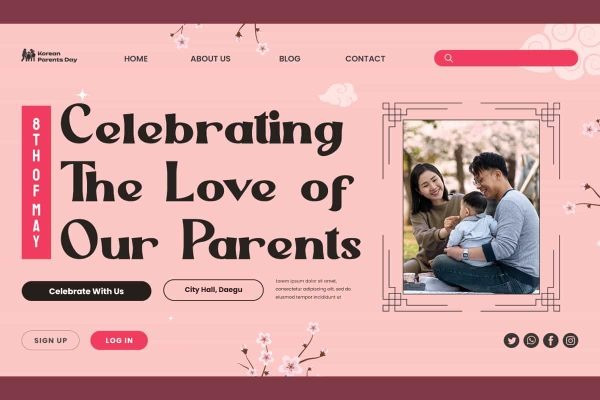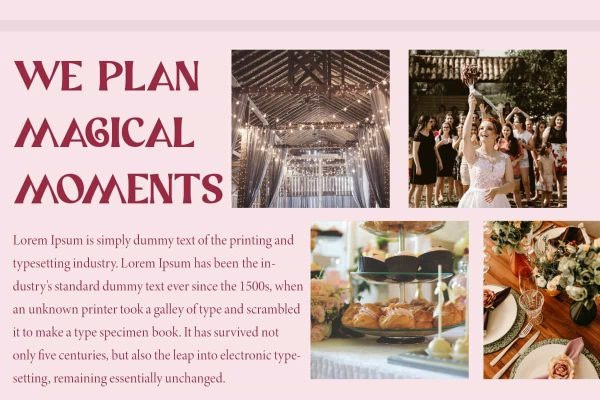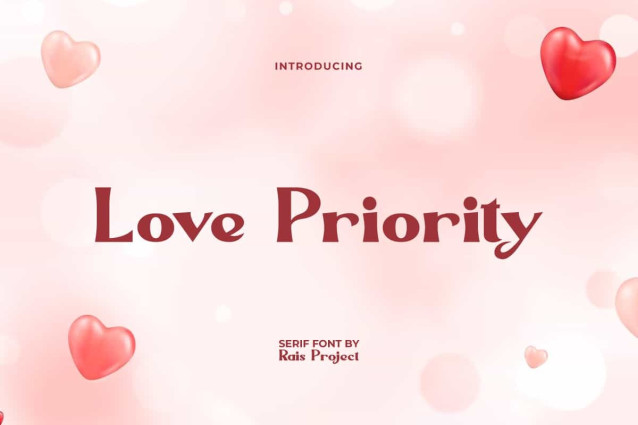
Love Priority Font
Love Priority Font is a sweet elegant serif display font, by RaisProject. This font can add beauty to every design, especially in the month of February which is full of love. It will be good for any designs, such as custom design, label, poster, brand image, invitation, cover, product packaging, quotes, signage, stationery, web, and more!
Love Priority Font includes a full set of Uppercase and Lowercase Letters, Numerals, Punctuation, and Symbol. This beautiful font will be suitable for various industries, such as fashion, accessories, advertisement, event or wedding organizer, florist, homeware, perfume, photography, printing, publishing, real estate, etc.